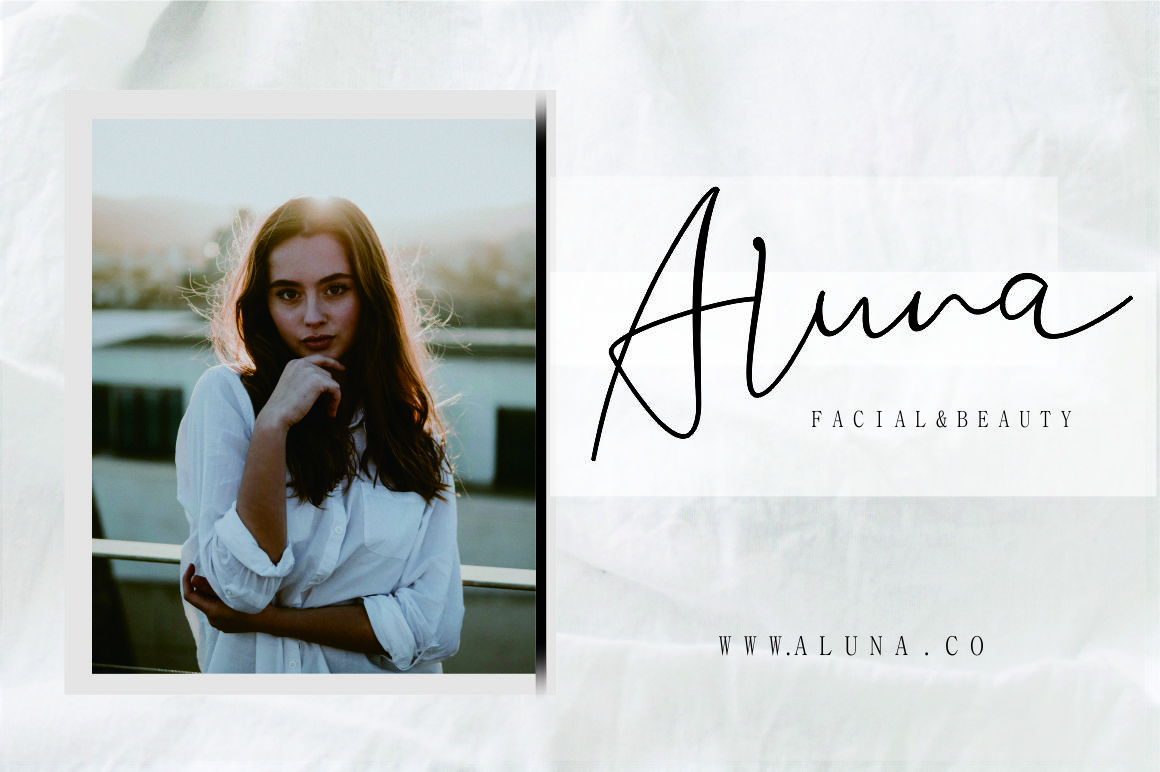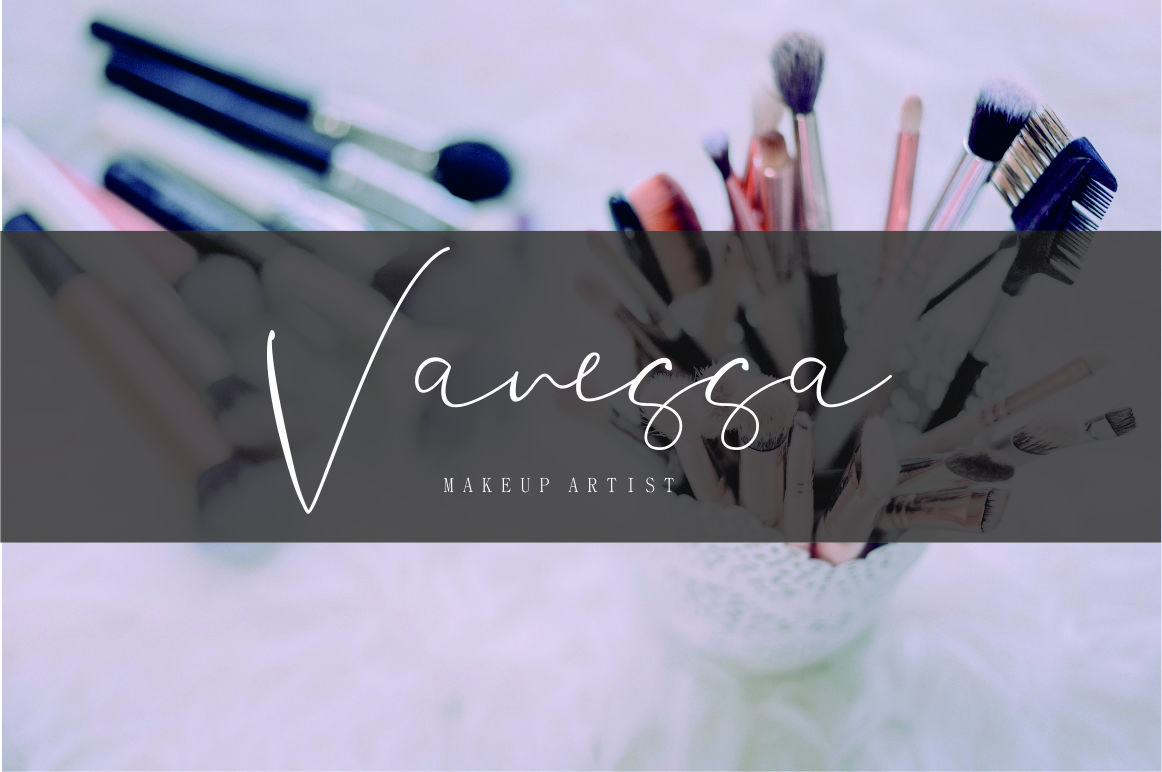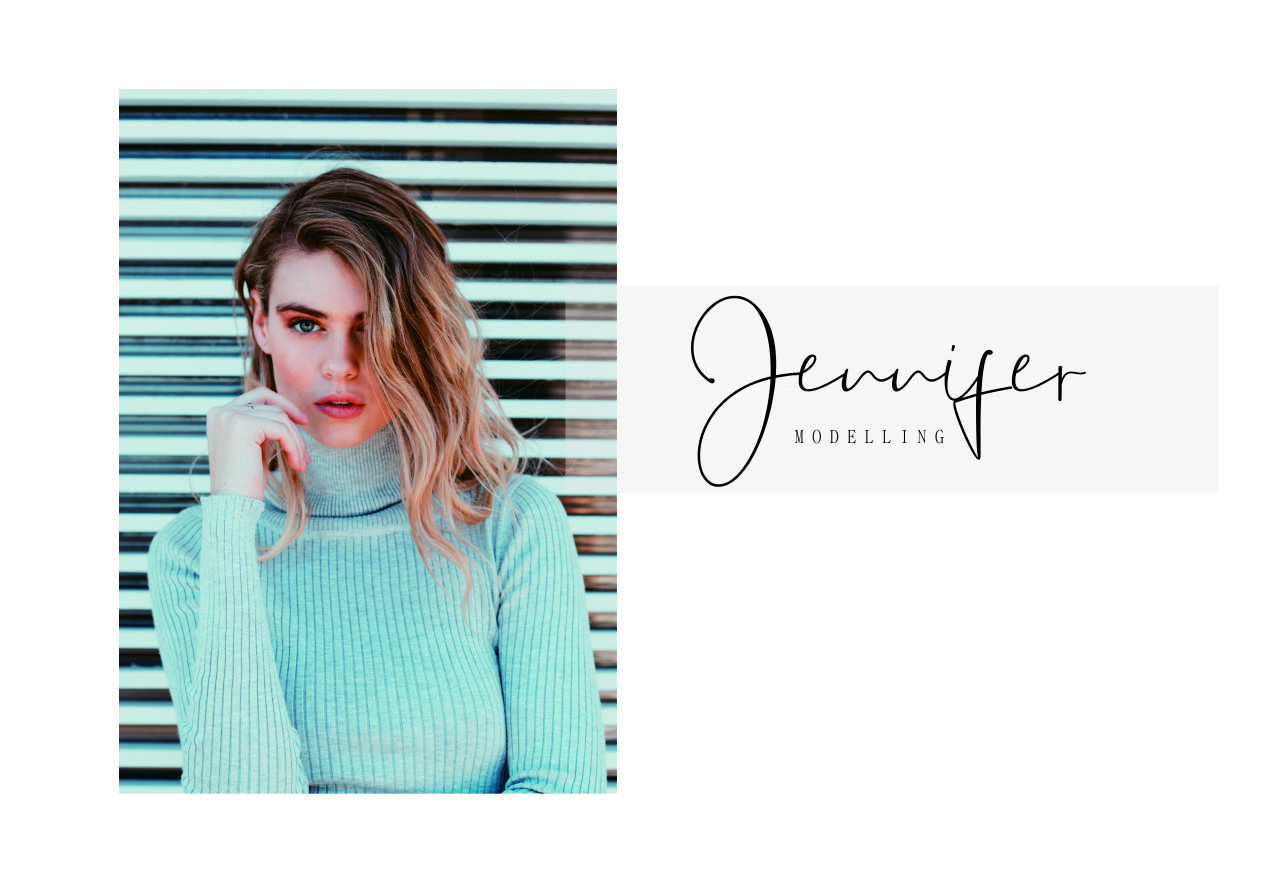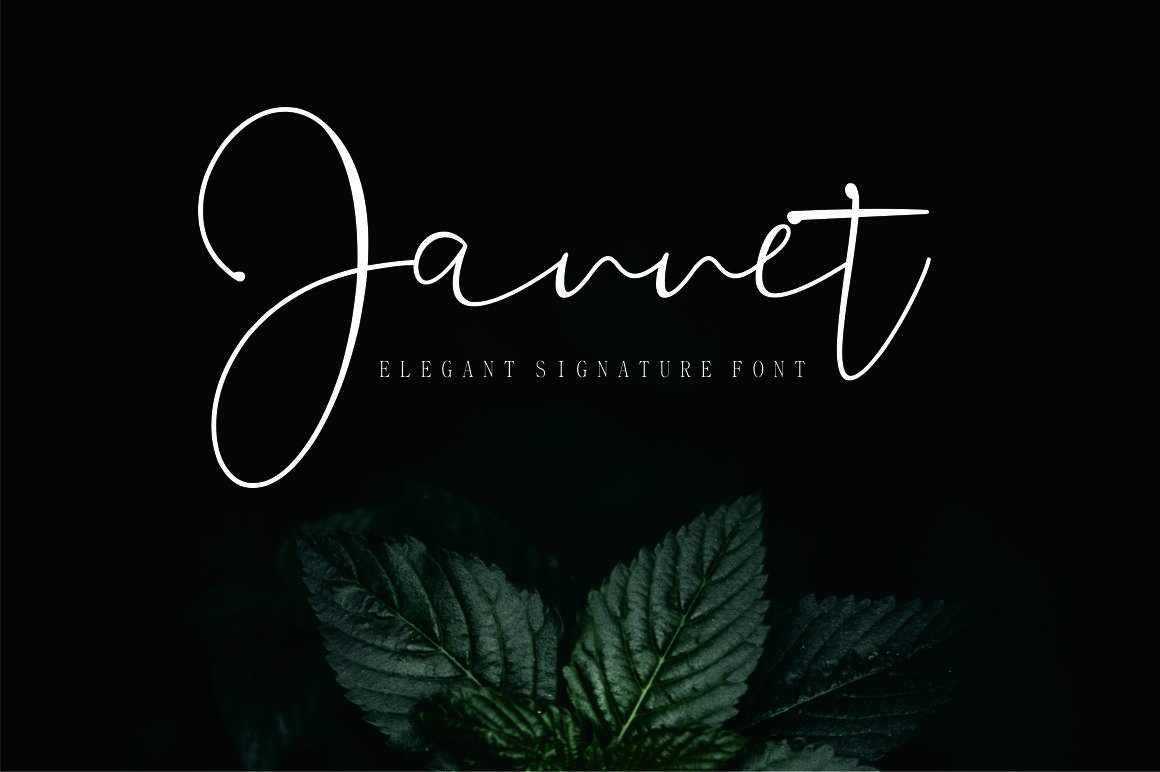
Jannet Signature Font
A elegant signature font. Introducing Jannet Font. This font is the signature elegant font, this font is the best choice for you and your needs like graphic design, signatures, logos, web designs, magazines, posters, brochures, and your name for business cards and others.